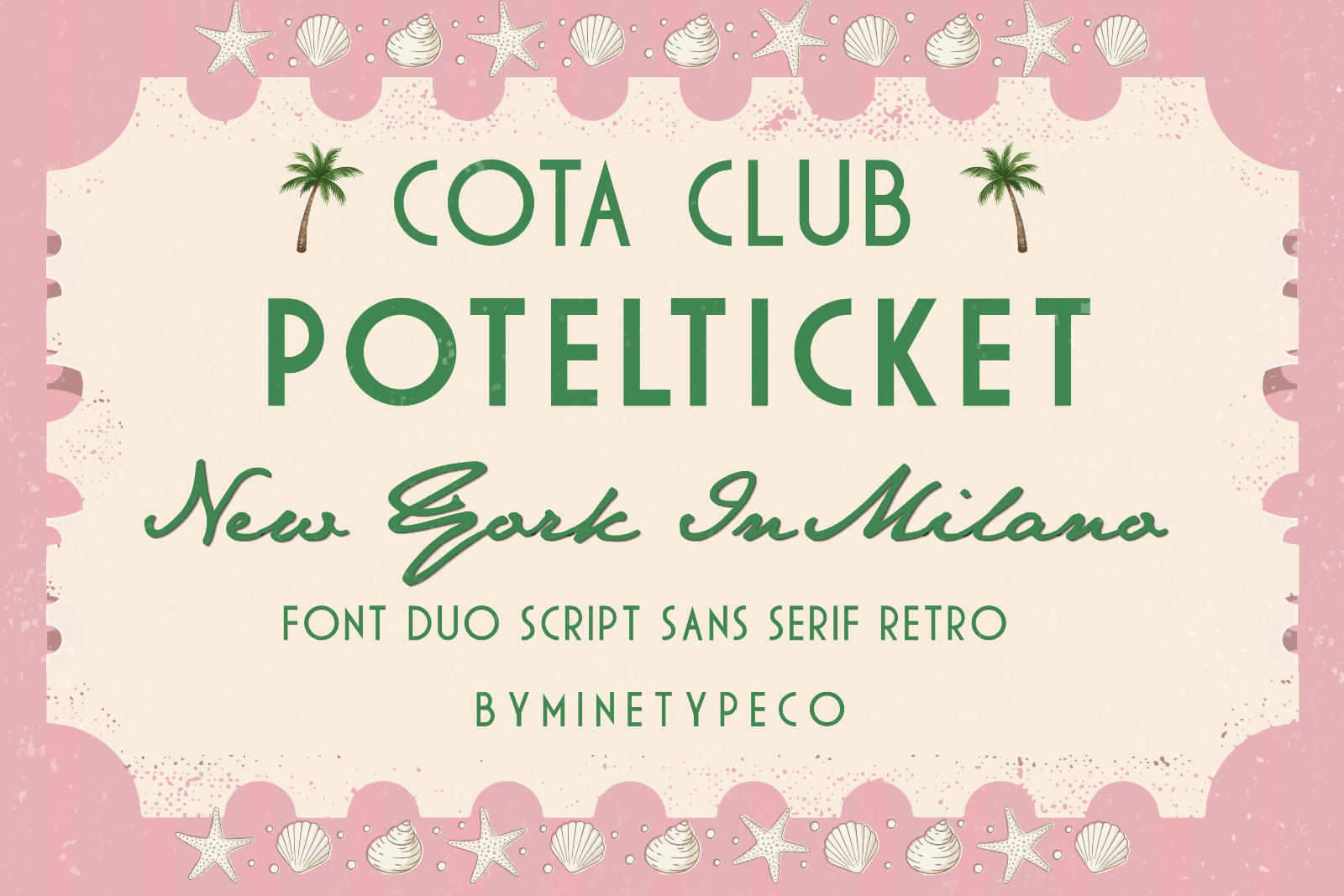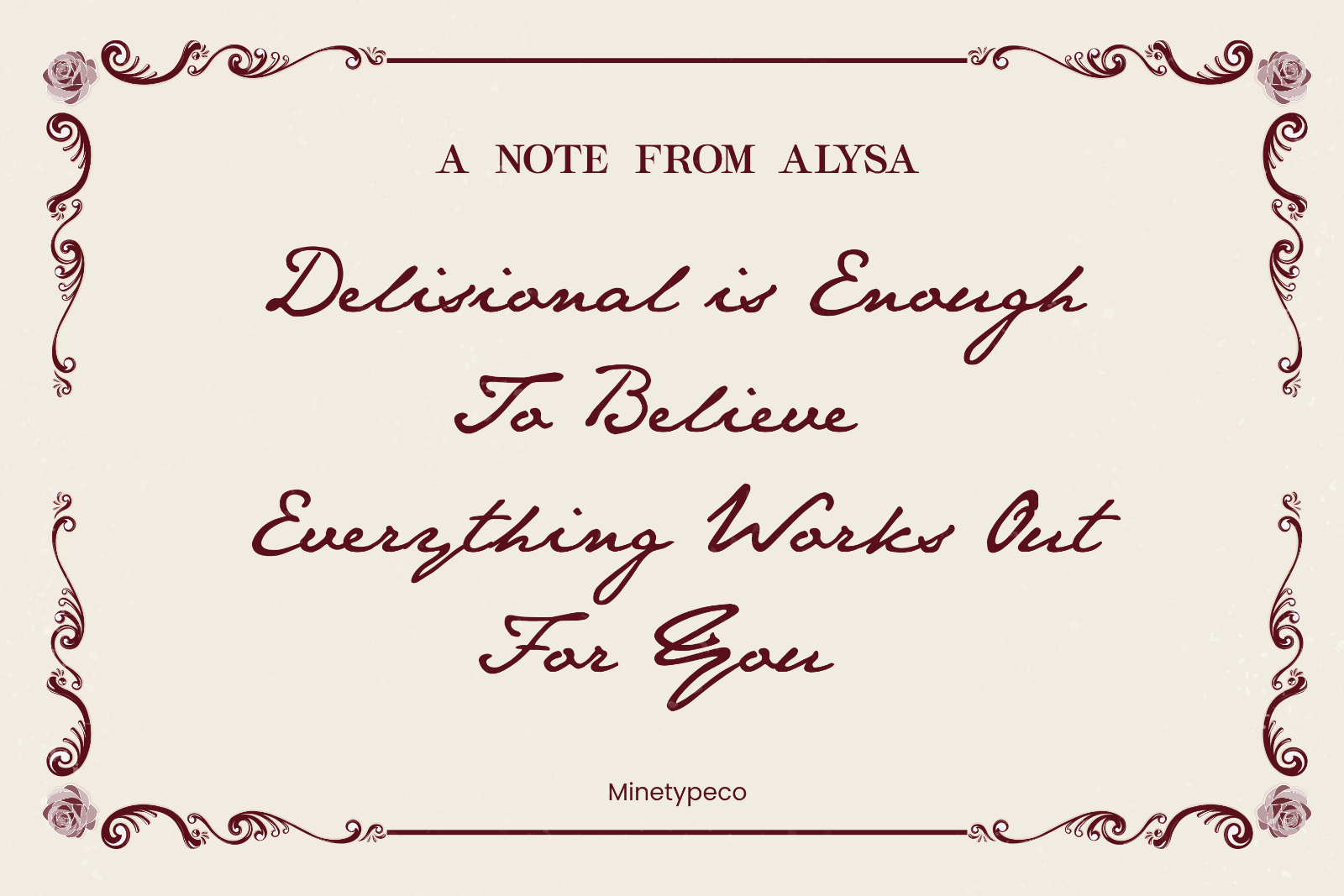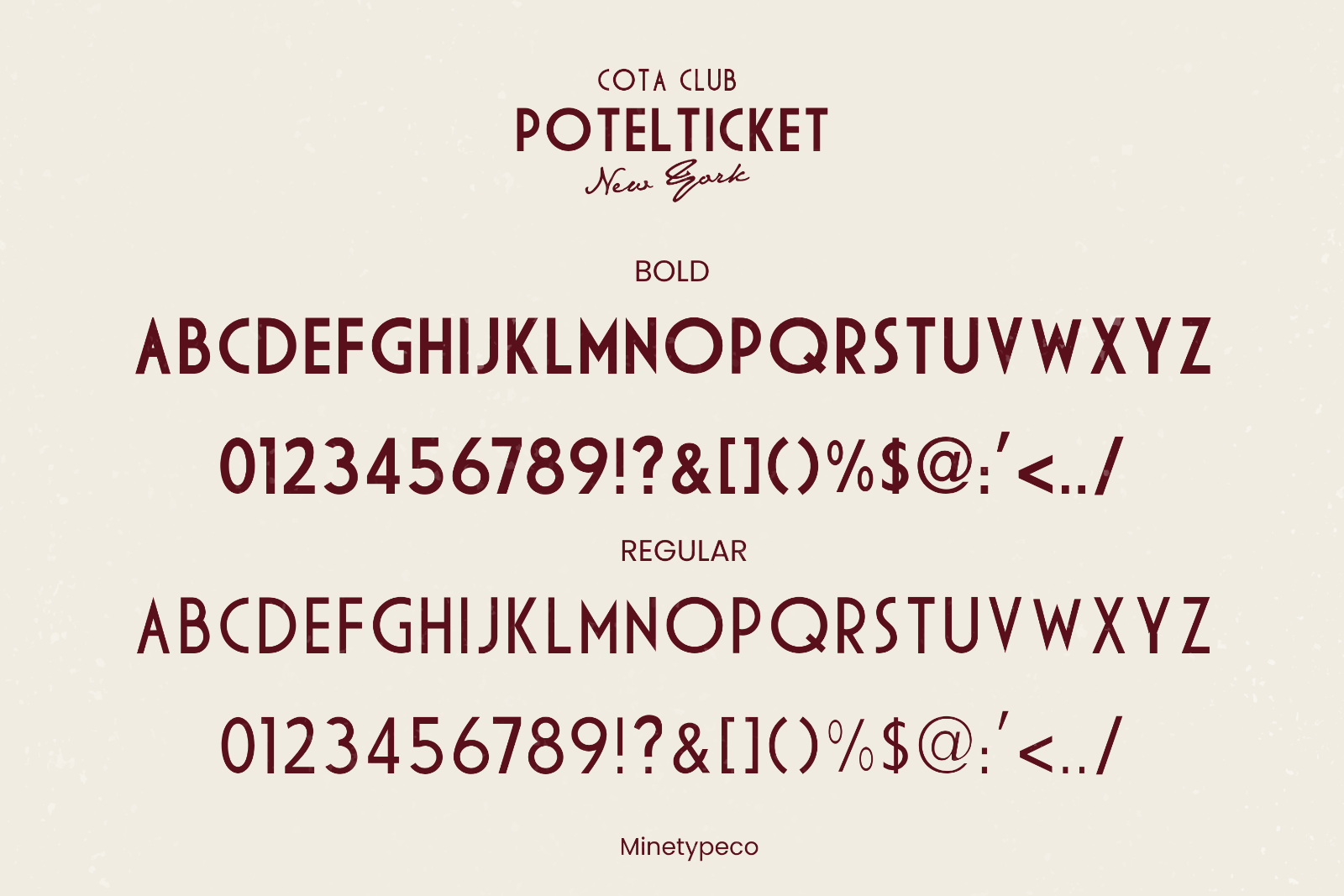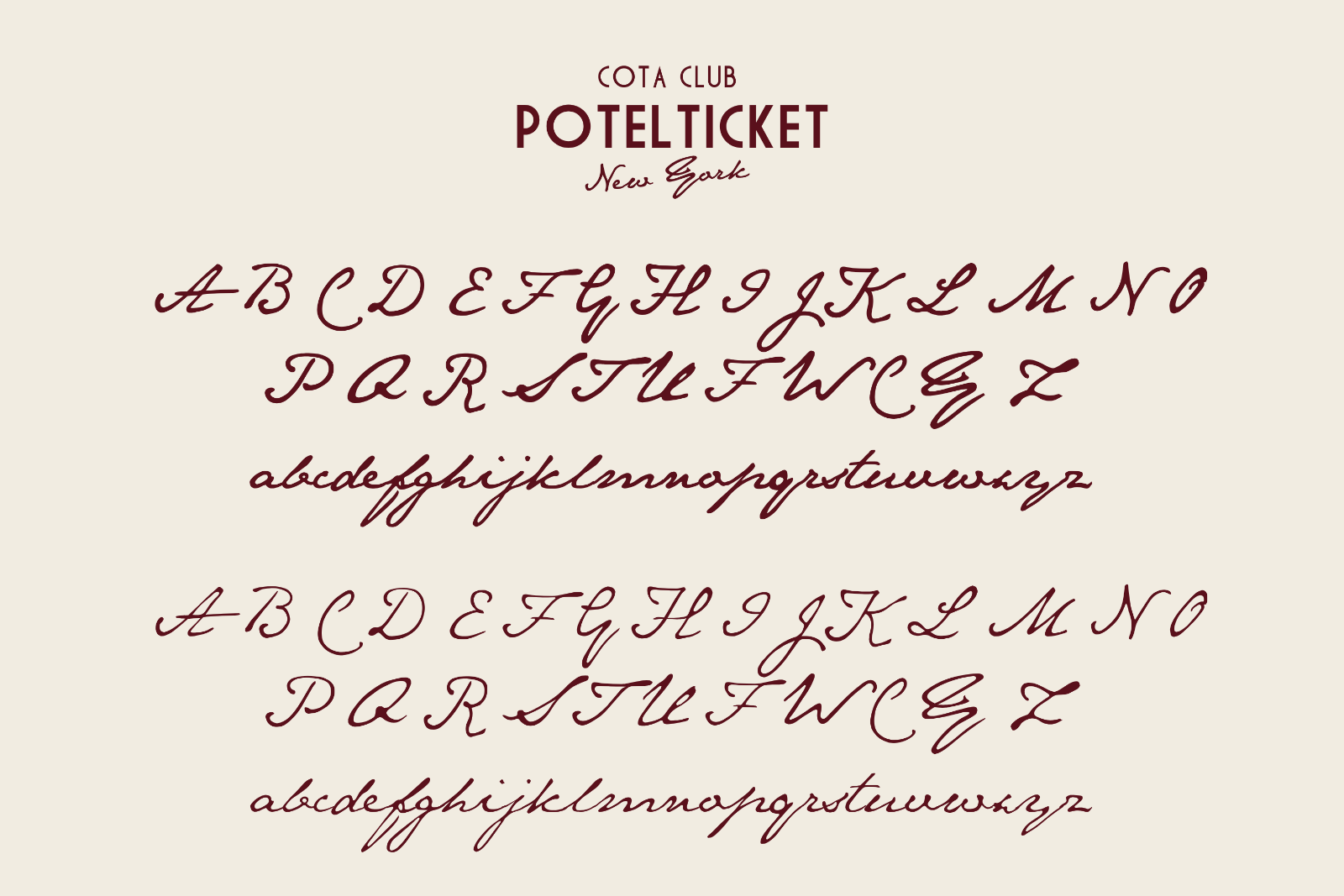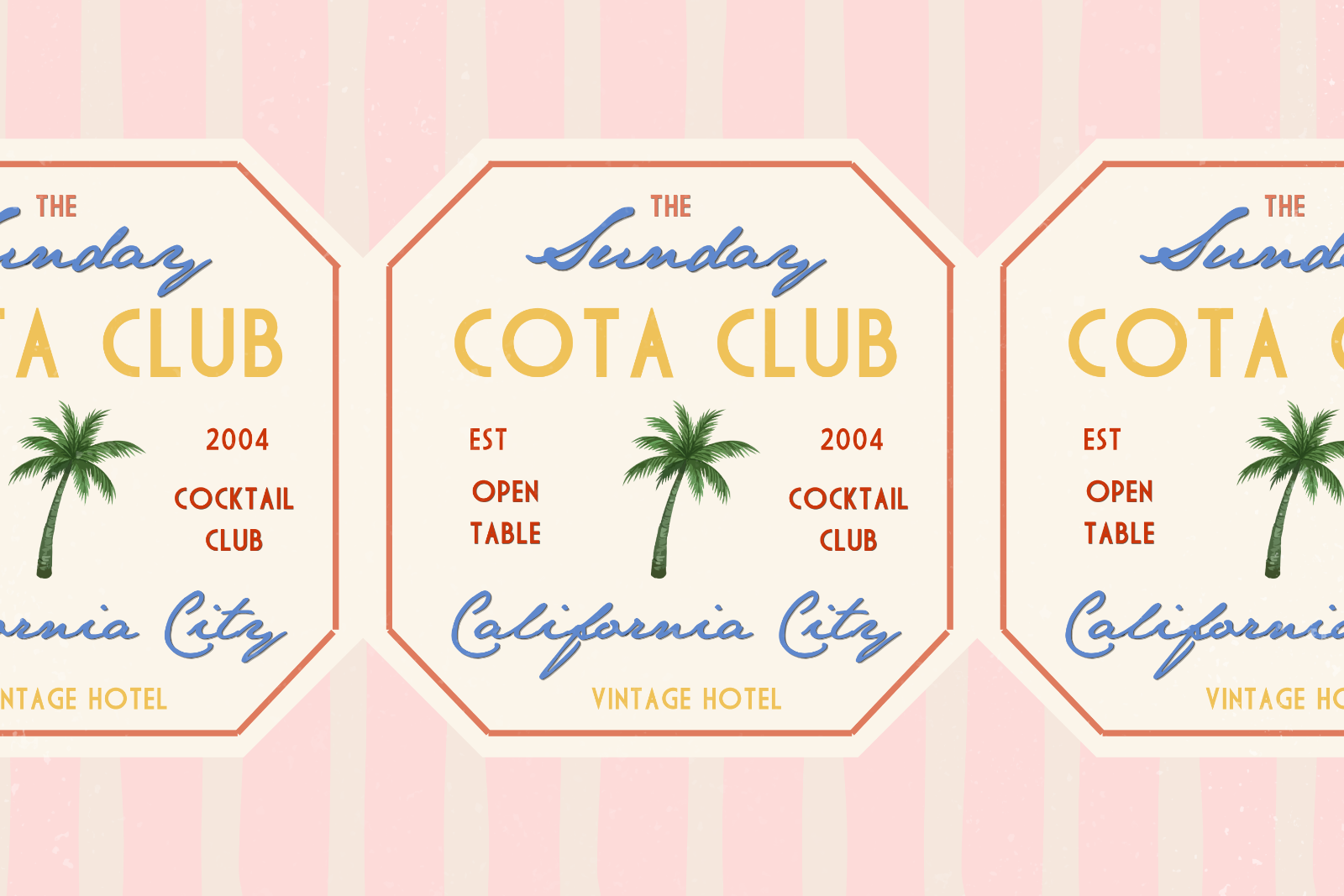
Cotaclub Potelticket is a beautifully crafted font duo that combines the elegance of a flowing script with the clean simplicity of a modern sans serif. Designed to complement each other perfectly, these two styles create a harmonious balance between expressive handwritten beauty and timeless minimalism. The script font features smooth, graceful strokes that add warmth and personality, while the sans serif offers a clean, refined structure that enhances readability and versatility.
Inspired by retro aesthetics with a contemporary touch, Cotaclub Potelticket brings a sophisticated yet playful character to any creative project. Whether used together or separately, this versatile font duo allows you to create eye-catching typography with ease, making it suitable for both bold headlines and elegant supporting text.
• Cotaclub Potelticket (Uppercase & Lowercase)
• Script Font & Sans Serif Font with natural handwritten f
• Numbers & Punctuation
Perfect For: Branding, vintage logos, bakery packaging, coffee shops, fashion labels, editorial designs, wedding stationery, signage, posters, and retro-inspired projects.
Bring authentic vintage character and modern elegance into your next design with Cotaclub Potelticket.